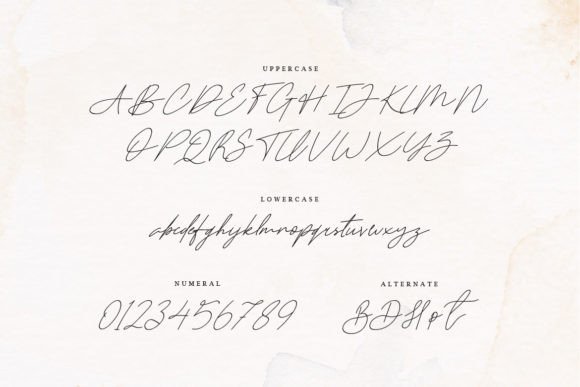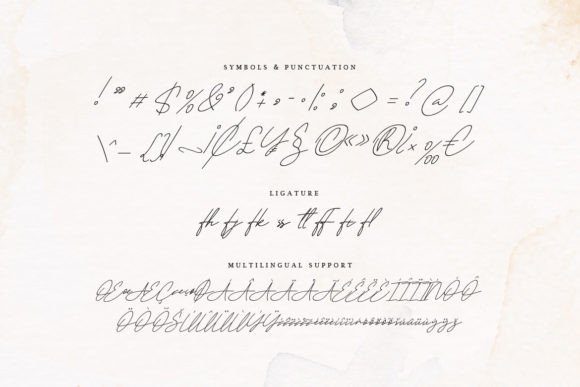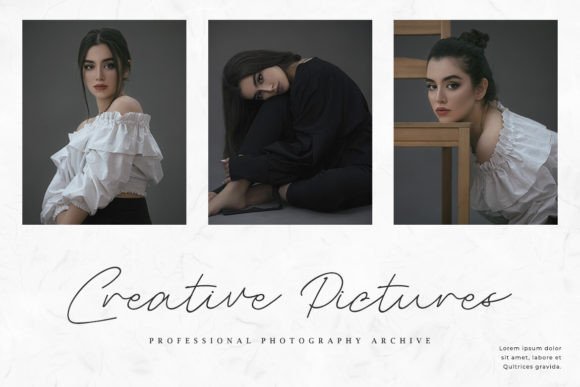
Introduction to Mert Pierce Font
You know that moment when you’re working on a creative project, and you need that perfect finishing touch to make it truly special? For designers, that moment often comes when we’re searching for a font that captures the essence of our brand’s personality. And that’s where the Mert Pierce Font comes in – a beautifully crafted, handwritten signature font that adds a personal touch and authenticity to any design.
With its fluid strokes and natural flow, the Mert Pierce Font is perfect for branding, logo design, product packaging, and more. Whether you’re working on a design project and need a unique font to make it stand out, or you’re a designer looking for a reliable design resource, the Mert Pierce Font is a valuable addition to your toolkit. And the best part? It’s available for a free download, so you can start enhancing your designs with its elegant and sophisticated charm right away.
Whether you’re working on a high-quality design project or just need a versatile font for everyday use, the Mert Pierce Font is an excellent choice. Its transparent background and high-quality design make it a seamless addition to any design, and its unique personality will help you stand out from the crowd.
Key Features of Mert Pierce Font
- Unique, handwritten style with a touch of elegance, perfect for creative projects that require a personal touch.
- Includes a wide range of characters, including uppercase and lowercase letters, numbers, and punctuation marks, making it suitable for various design needs.
Honest Review: Mert Pierce Font
I recently stumbled upon the Mert Pierce Font, and I must say it’s a unique addition to any creative project. The font has a distinct, elegant feel to it, making it perfect for high-end designs. One of the standout features is the availability of a transparent background, which allows for seamless integration with other design elements.
Here are some of the things that work well with the Mert Pierce Font:
- ✨ Elegant and sophisticated design
- ✨ High-quality glyphs for crisp and clear text
However, I did encounter some limitations with the font:
- ⚠️ Limited font family options, which may not be ideal for extensive branding
- ⚠️ Some users may find the font too ornate for everyday use
Overall, the Mert Pierce Font is a solid choice for designers looking for a high-quality, elegant font. While it may not be the best fit for every project, it’s definitely a valuable addition to any design library. With a bit of creativity, the Mert Pierce Font can elevate even the most mundane designs to a new level of sophistication.
Tips for Getting the Most Out of the Mert Pierce Font
For the best results, use the Mert Pierce Font on a high-quality design project. Experiment with different font sizes, colors, and styles to add depth and visual interest to your design. This font is a great design resource for creating unique and creative projects.
The Mert Pierce Font is perfect for designing logos, social media graphics, and marketing materials. It’s also great for creating digital products, such as e-books, templates, and more. With its high-quality design and transparent background, this font is a valuable resource for any creative project.